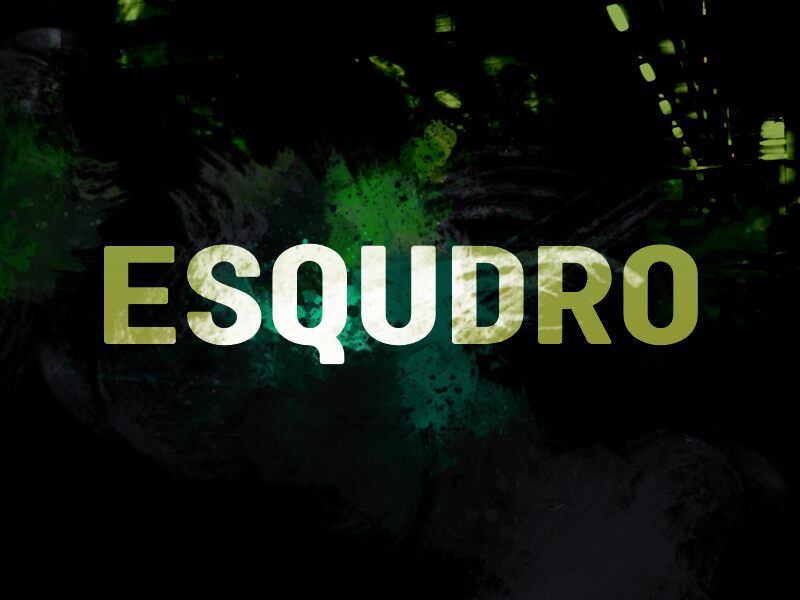
Esquadro, a sans serif font designed by wep, exudes a modern and sleek aesthetic. With its semi-bold weight, Esquadro is the perfect choice for various projects that require a strong and confident typographic presence.
Its clean lines and clear legibility make it ideal for corporate branding, professional presentations, and editorial designs. Whether used in headlines or body text, Esquadro adds a touch of sophistication to websites, advertisements, and packaging designs. Embrace the versatility of Esquadro and elevate your project with its contemporary elegance.